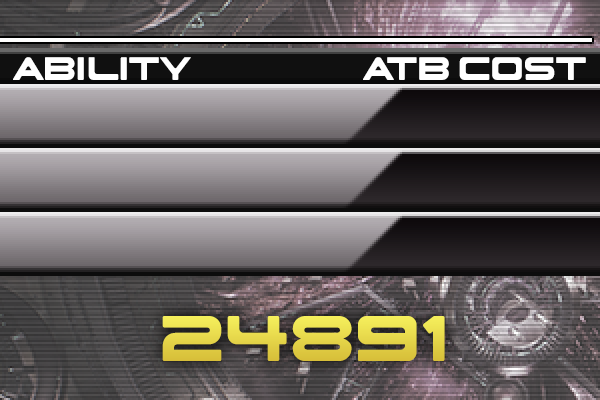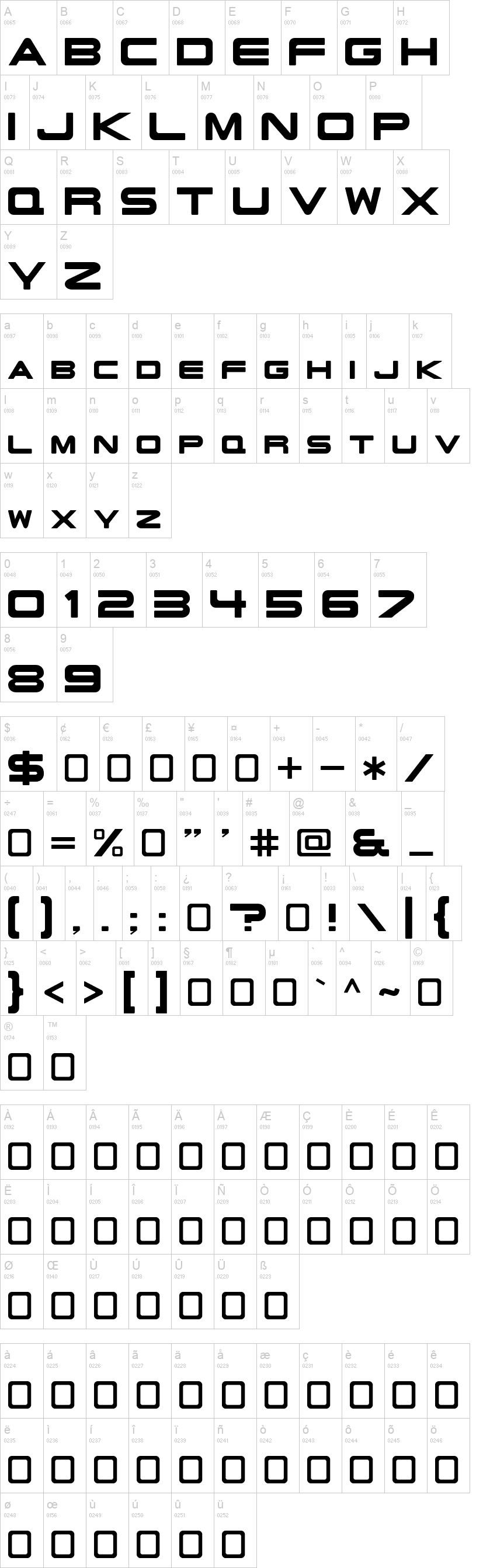
Fabula Pulse it.ttfFabula Pulse bd.ttfFabula Pulse bi.ttfNote of the authorThis font family is inspired by two supplementary fonts seen within Final Fantasy XIII (a trademark of Square Enix).